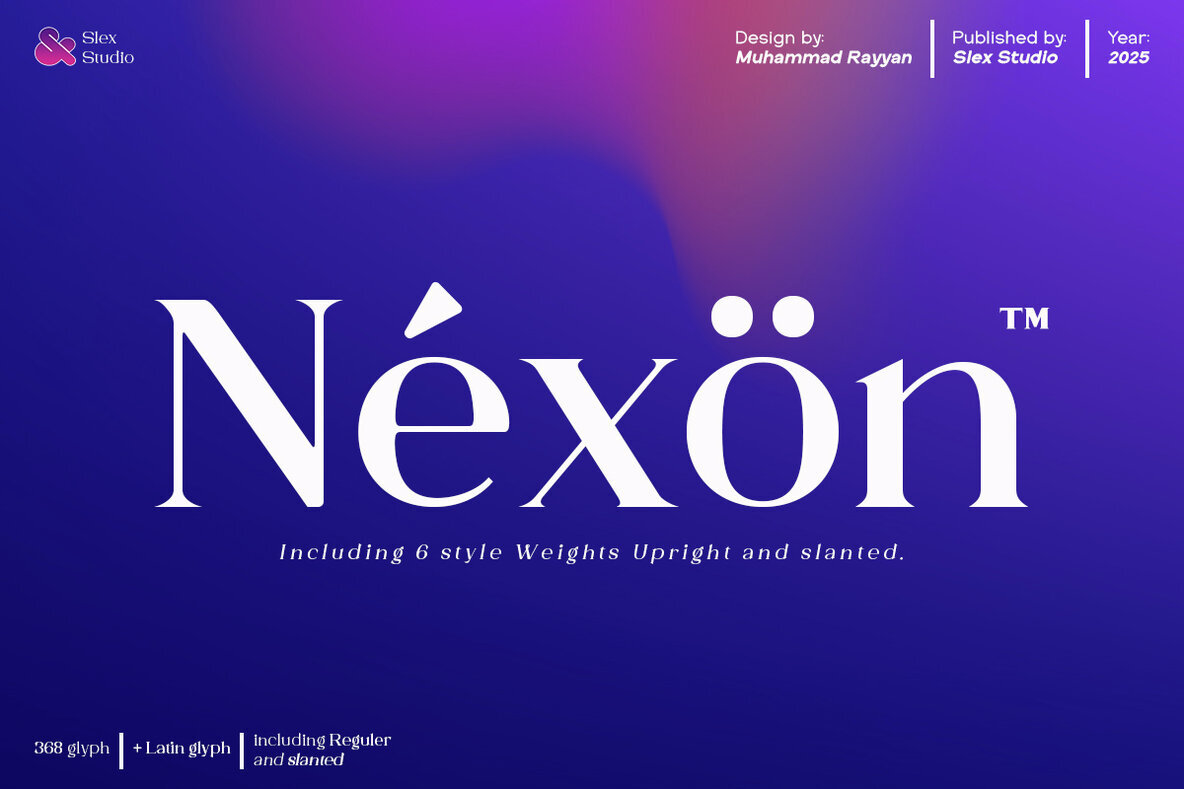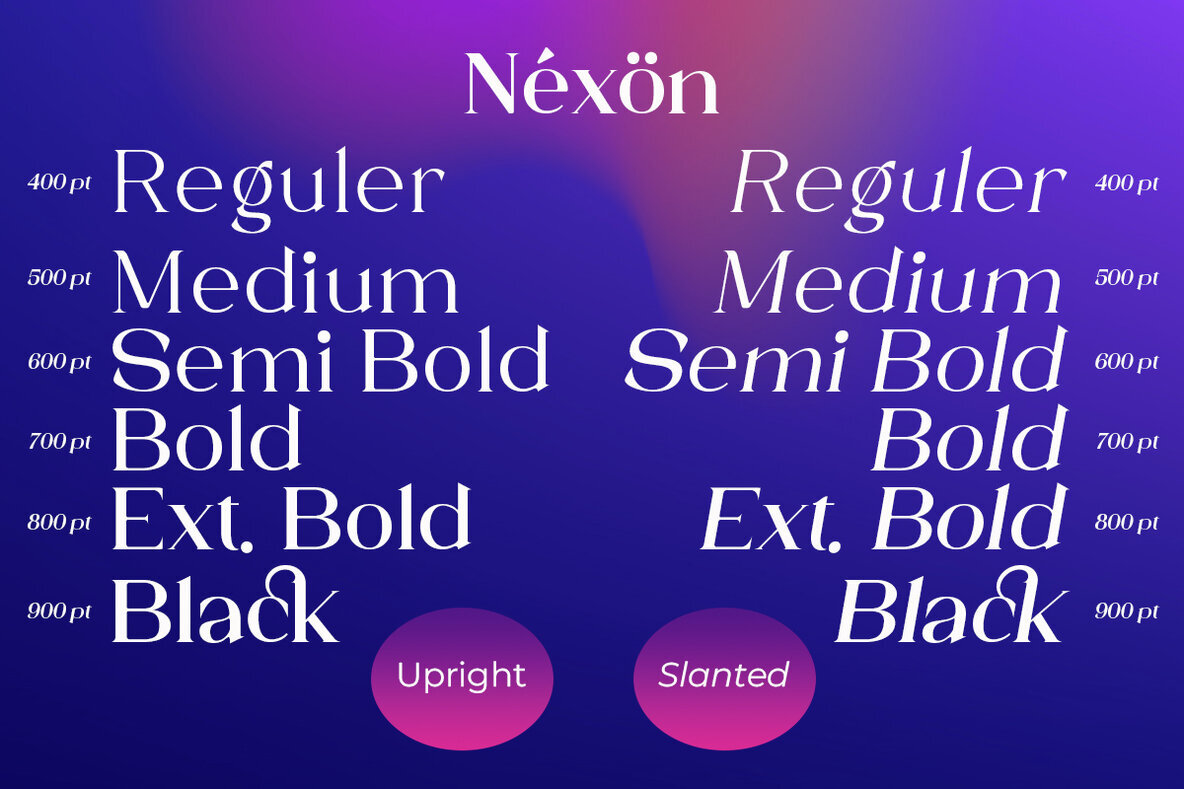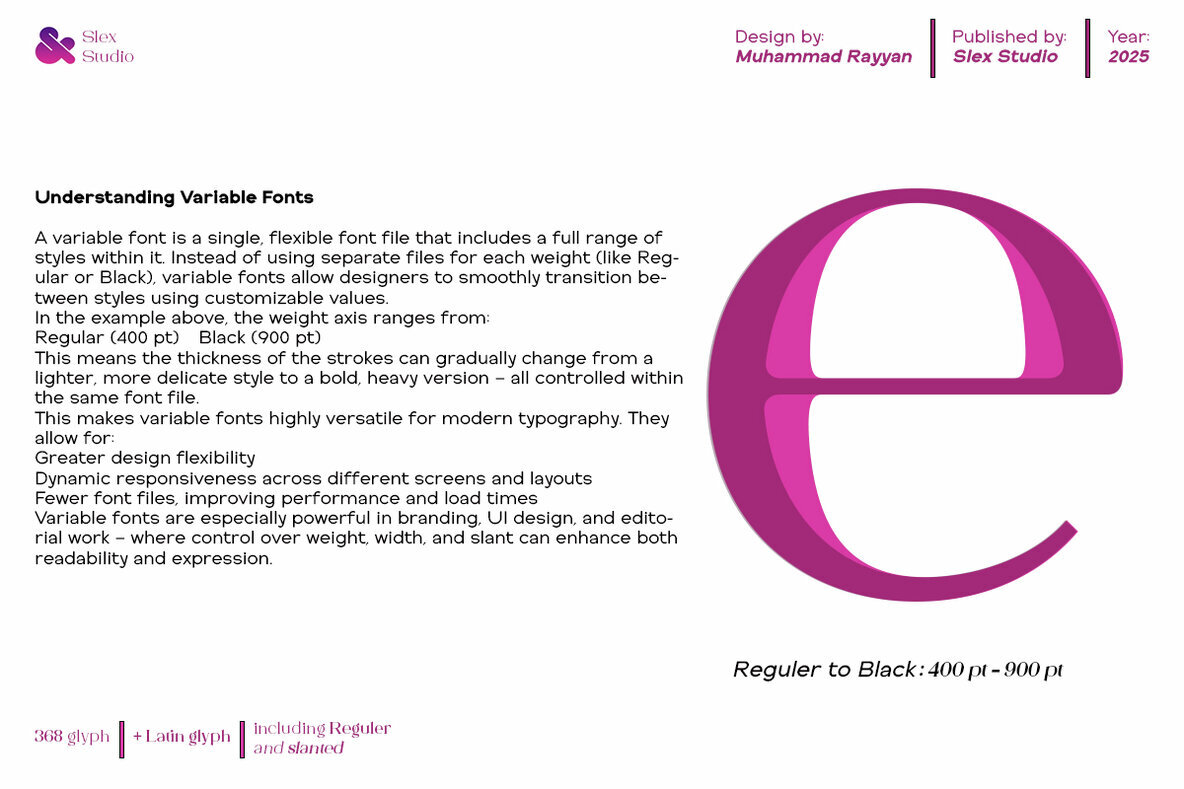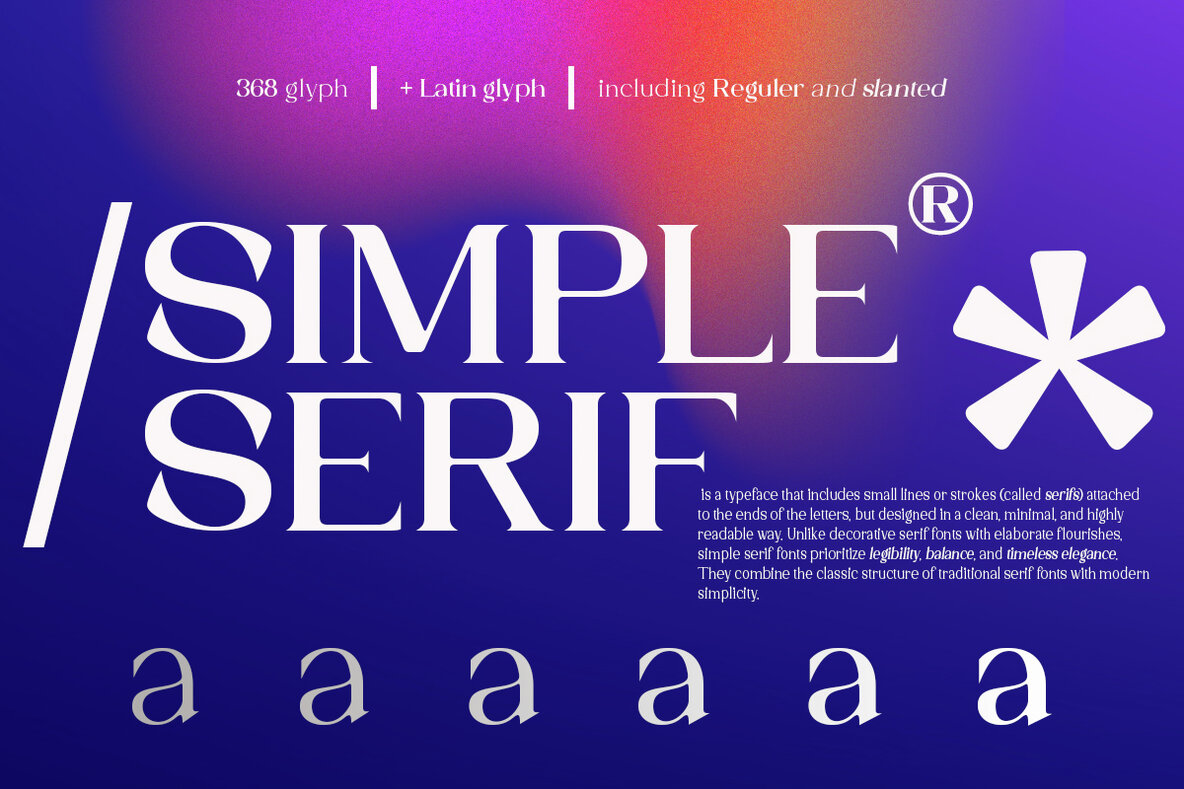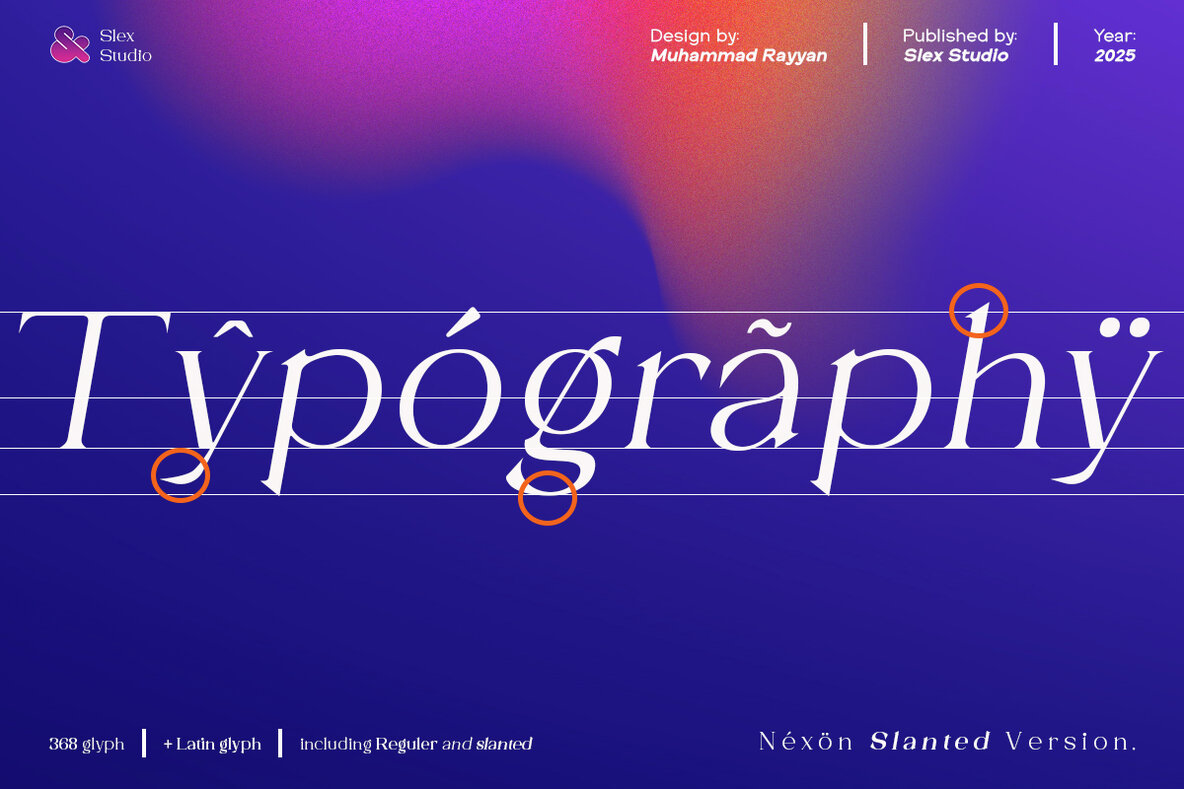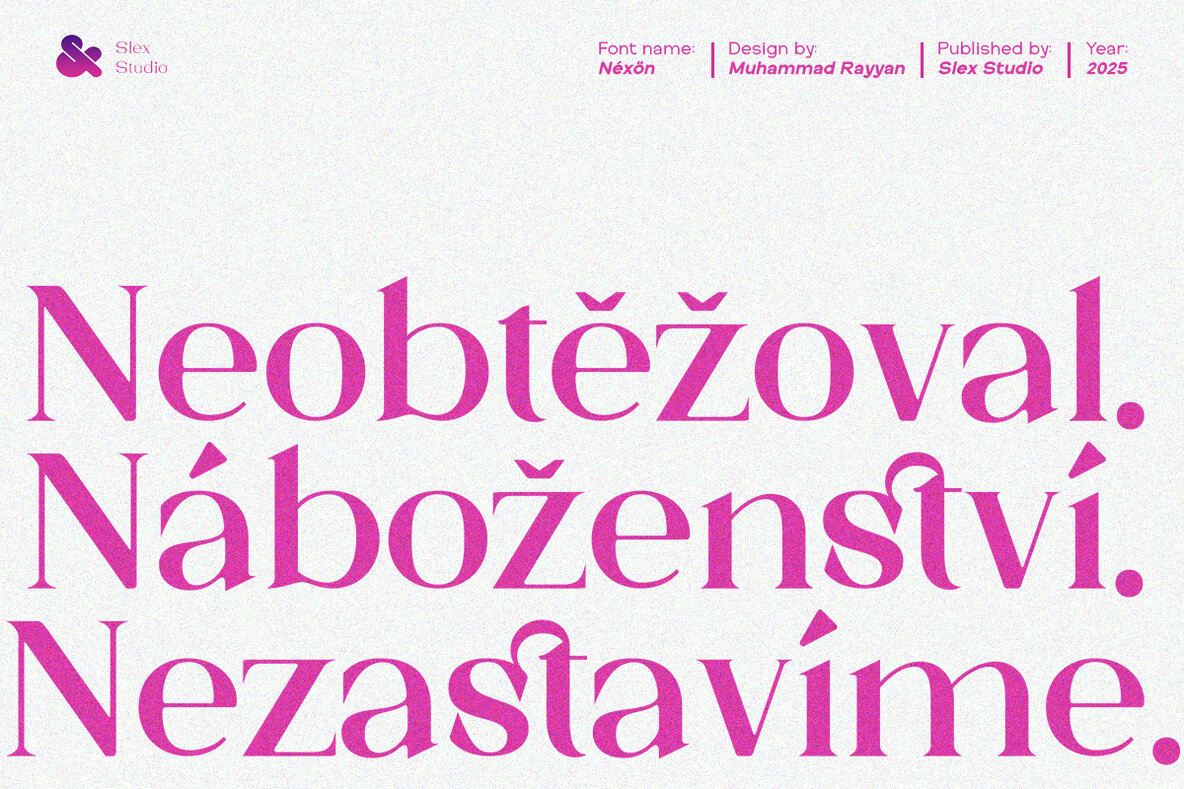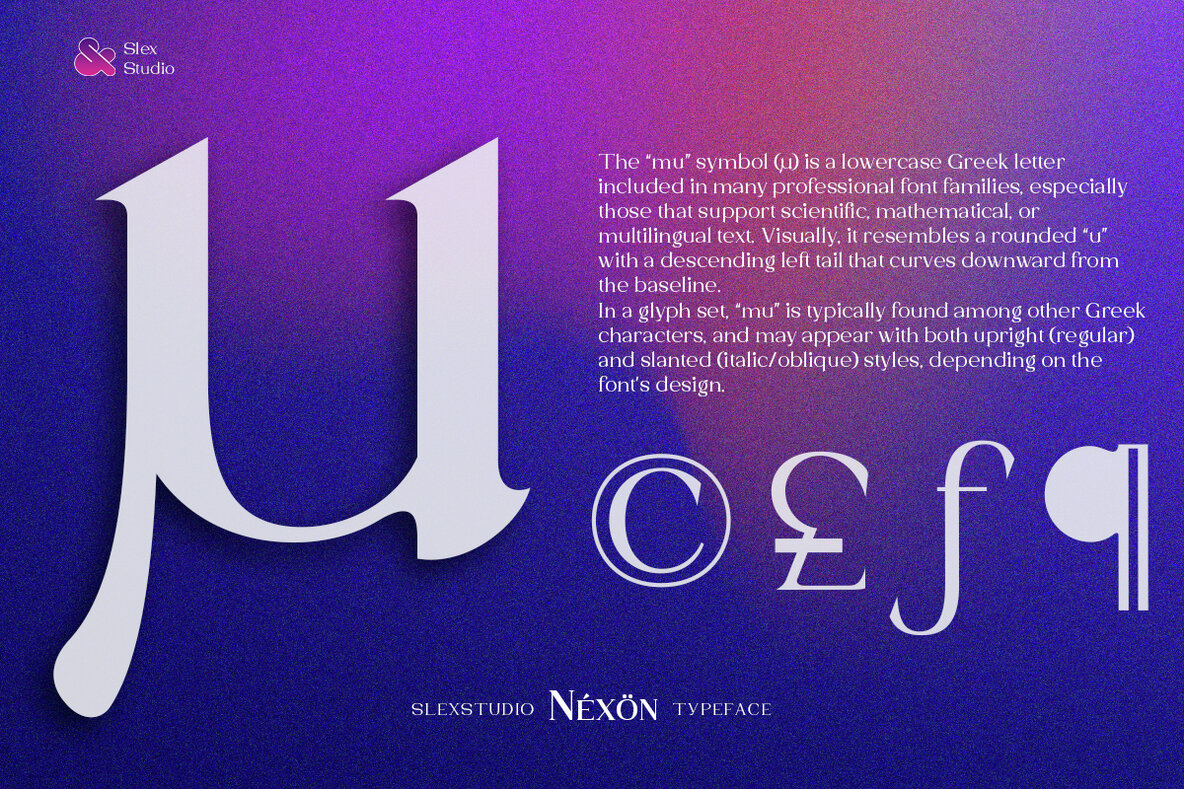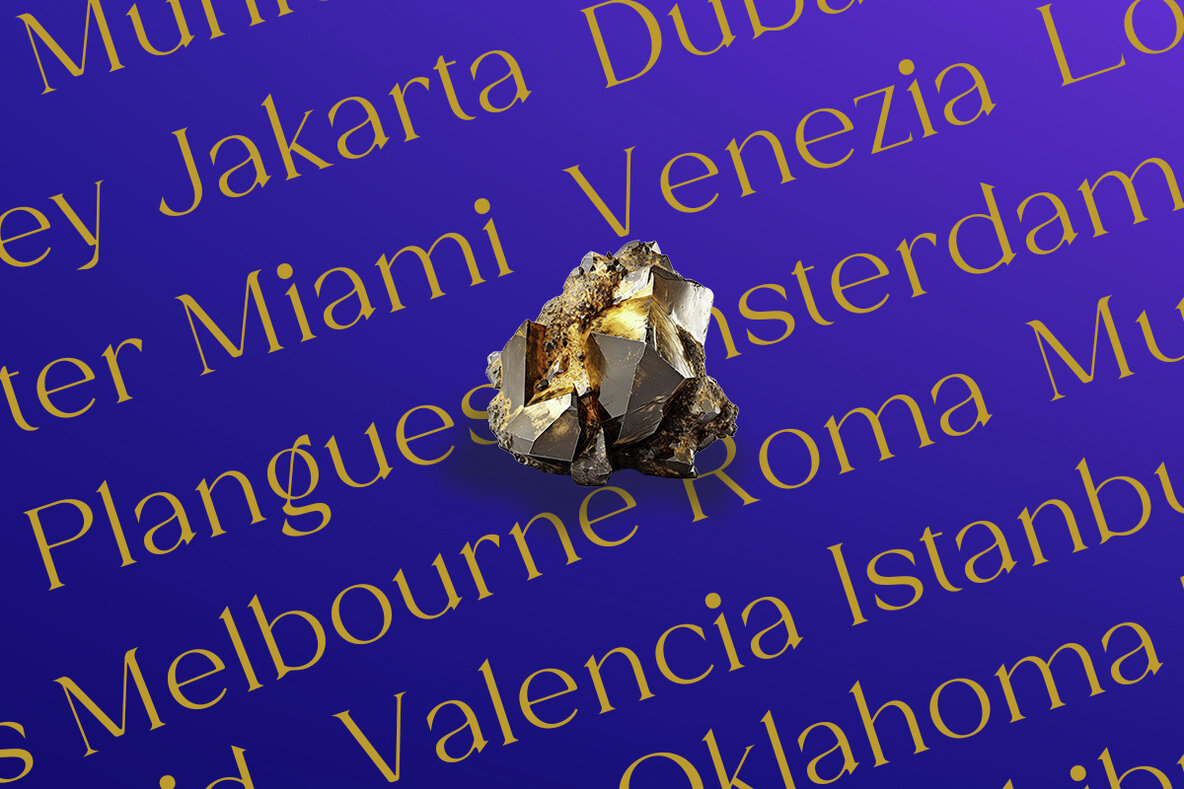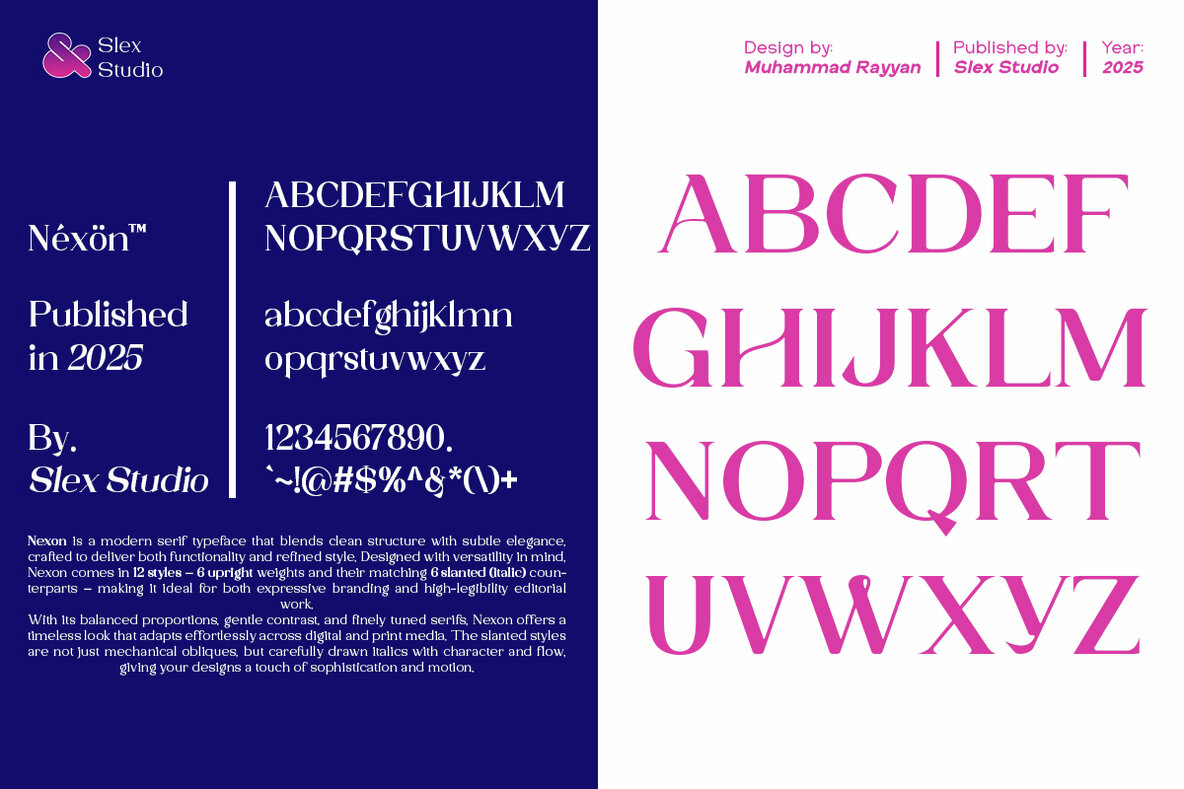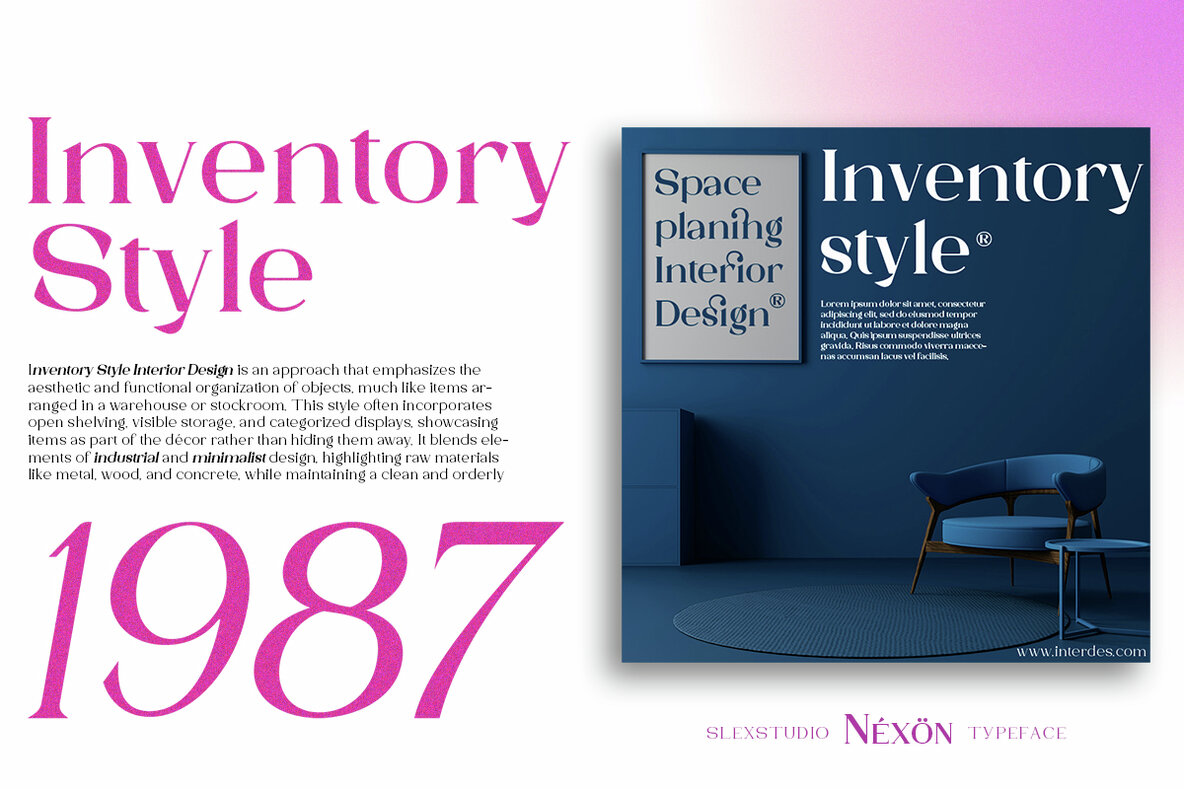
Nexon Font
Nexon is a modern serif typeface that artfully combines clean lines with subtle elegance. Perfectly crafted for both functionality and style, it delivers versatility across a range of applications. Featuring 12 distinct styles—comprising 6 upright weights and their slanted (italic) counterparts—it’s ideal for bold branding initiatives and high-legibility editorial projects. With balanced proportions and gentle contrast, Nexon's finely tuned serifs present a timeless aesthetic. Whether used in digital or print media, it adapts seamlessly. The slanted styles are more than simple obliques; they are intricately crafted italics, adding sophistication and fluidity to your designs.Nexon Typeface